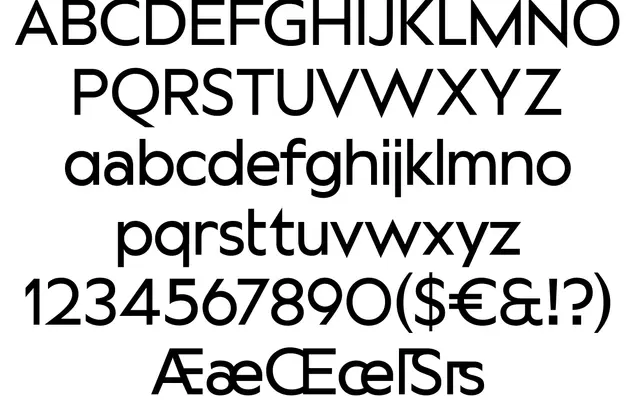
Blanche Sans
Trulytype · 2015
A geometric sans with Bauhaus lineage, blending rational structure with humanist warmth across five weights.
Drawing on the Bauhaus and the influence of Paul Renner, this typeface pairs geometric construction with approachable proportions that soften its modernist rigour. Released in 2015, it covers an extensive range of Latin-extended languages, making it a practical choice for multilingual work. The five-weight range suits both display and text applications without straying far from its clean, optimistic character.
Inspired by Bauhaus principles and Paul Renner, Blanche Sans is built on geometric foundations with humanist proportions, placing it squarely in the geometric sans tradition.